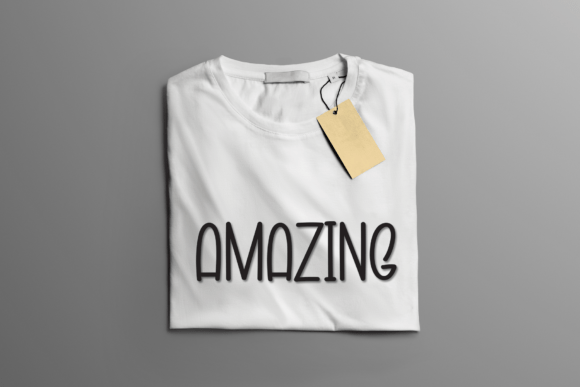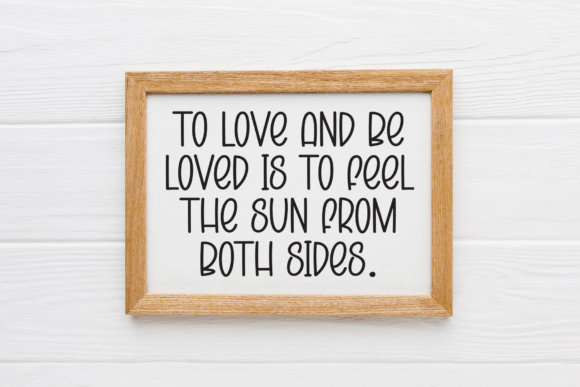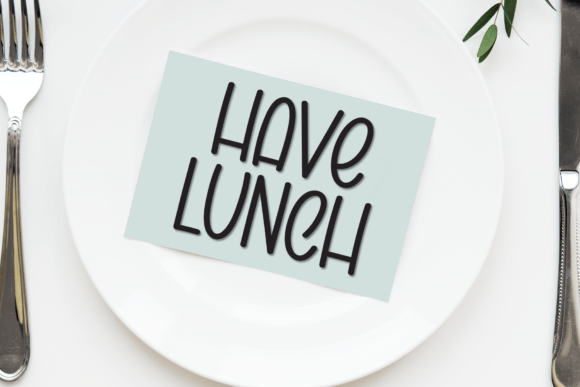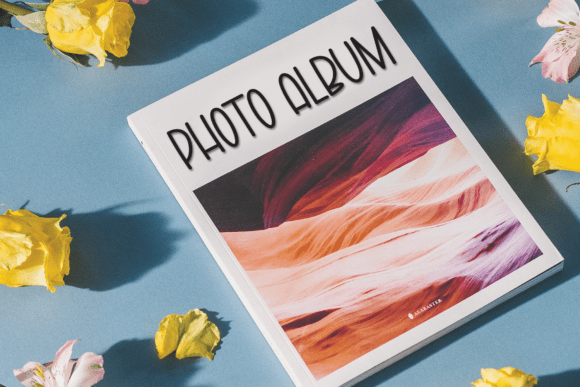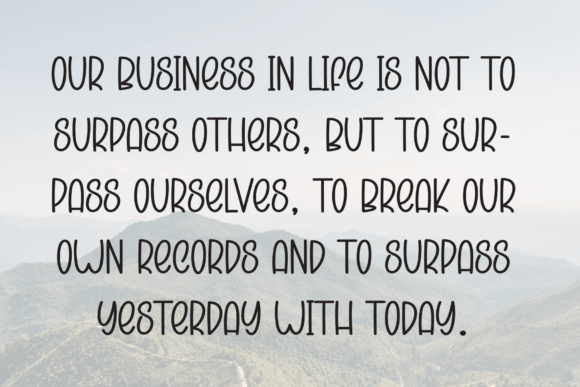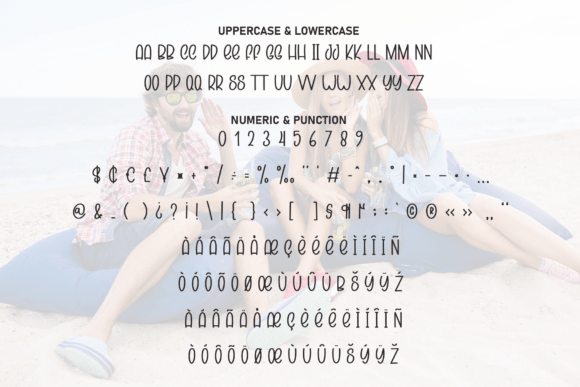
Introduction to Fun Beach Font
Do you remember that moment when you stumbled upon the perfect font for your creative project? The one that elevates your design from ordinary to extraordinary? For many designers, finding the ideal font can be a game-changer, and that’s exactly what Fun Beach Font promises to deliver.
With its unique blend of simplicity and friendliness, the Fun Beach Font is an excellent addition to any design resource. Its clean lines, balanced letterforms, and subtle rounded edges make it a high-quality choice for branding, headlines, packaging, and digital content. Whether you’re working on a free download or a paid project, this font adds a warm and inviting touch that’s hard to resist. Plus, its transparent background and versatile style make it a versatile design resource that’s sure to please.
For designers, the Fun Beach Font is a valuable asset that can take their creative projects to the next level. Its clarity and charm make it an ideal choice for designers who want to deliver high-quality designs that stand out from the crowd.
Key Features of Fun Beach Font
- High-quality, unique font design perfect for creative projects and designs that need a fun, beachy vibe.
- Fun Beach Font is a unique and creative design element that can add a touch of personality to any project or design.
Honest Review: Fun Beach Font
I recently stumbled upon the Fun Beach Font, and I must say it’s a great addition to any creative project. With its bright and playful design, it’s perfect for those looking to add a touch of whimsy to their work.
However, there are a few limitations to consider: ⚠️ the font may not be suitable for formal or professional projects, and it may not be as versatile as other fonts in certain design applications.
Overall, I’m impressed with the Fun Beach Font and would definitely recommend it to anyone looking for a fun and creative design solution. With its high quality and transparent background, it’s a great addition to any design arsenal. ✨
The Fun Beach Font is perfect for summer-themed projects, such as beach party invitations, summer sales promotions, and vacation advertisements. It’s also great for adding a playful touch to educational materials, like worksheets and activity sheets.